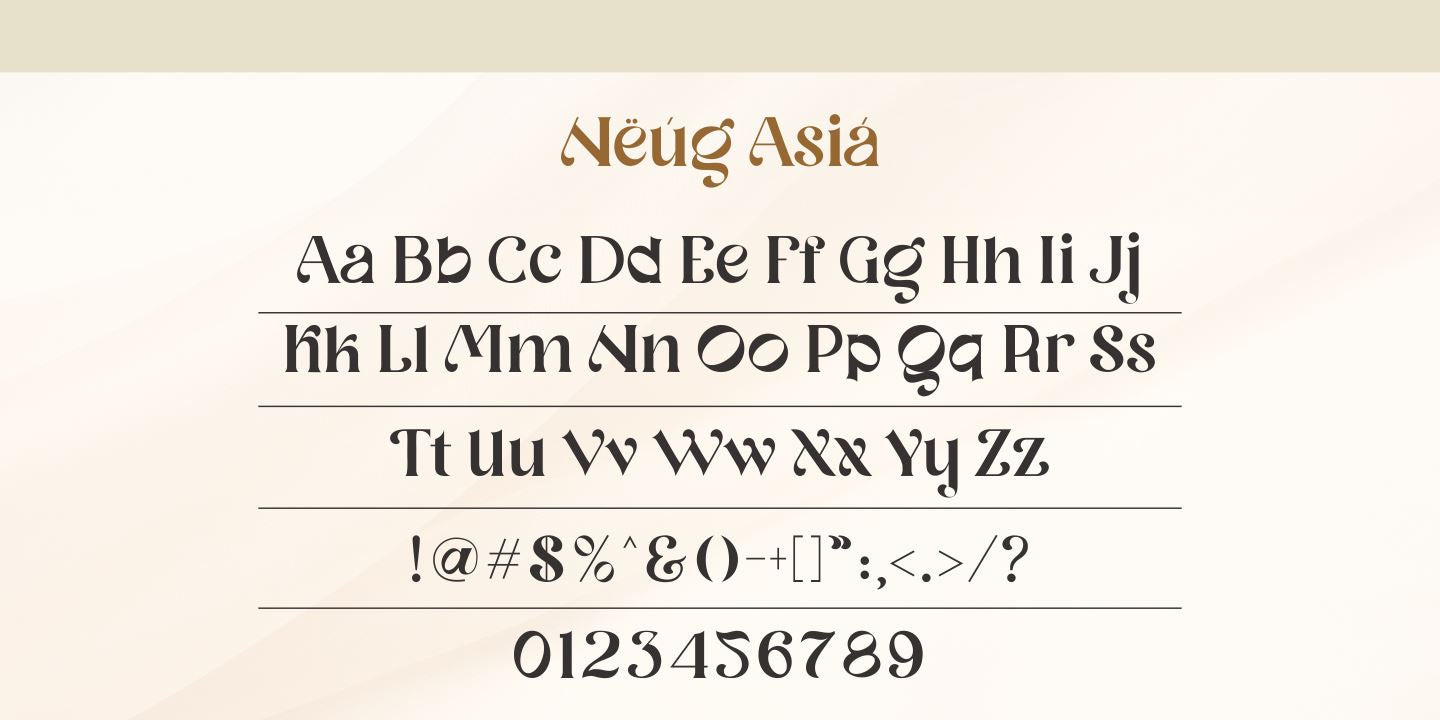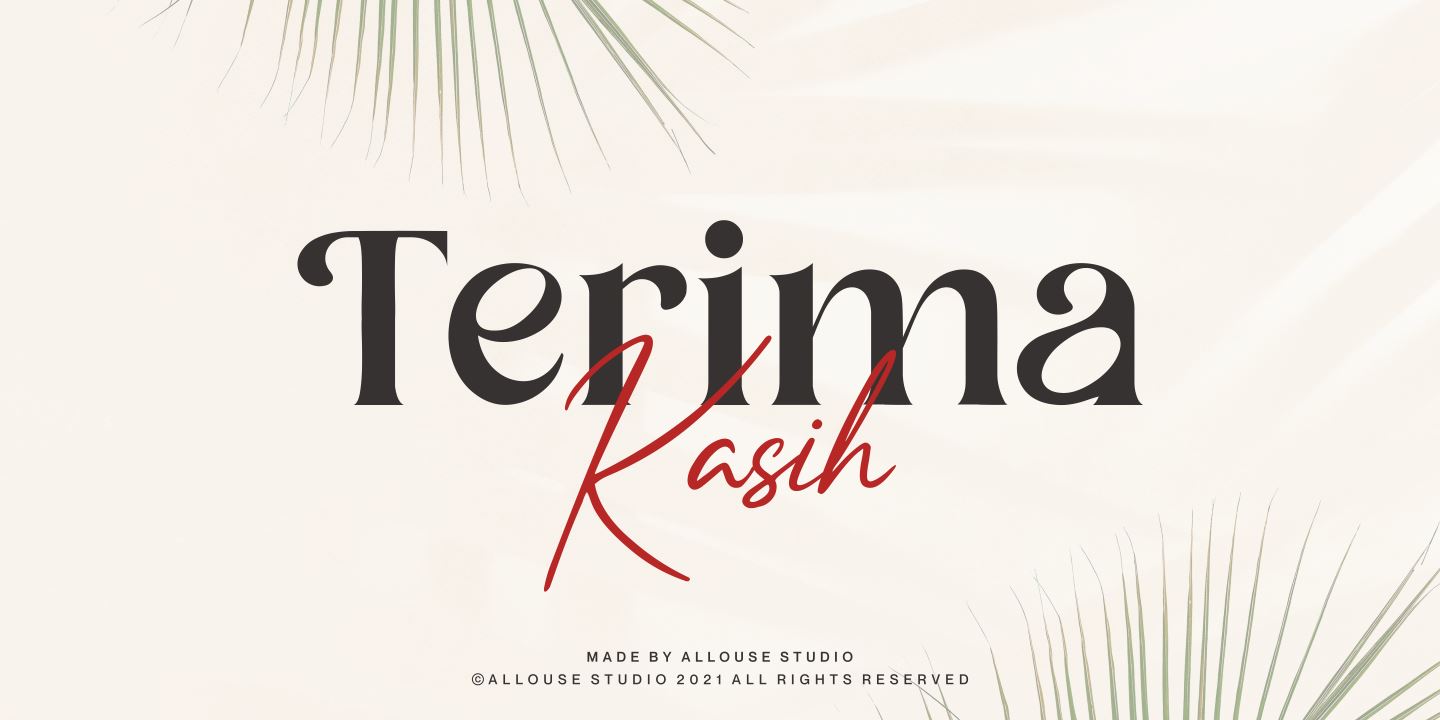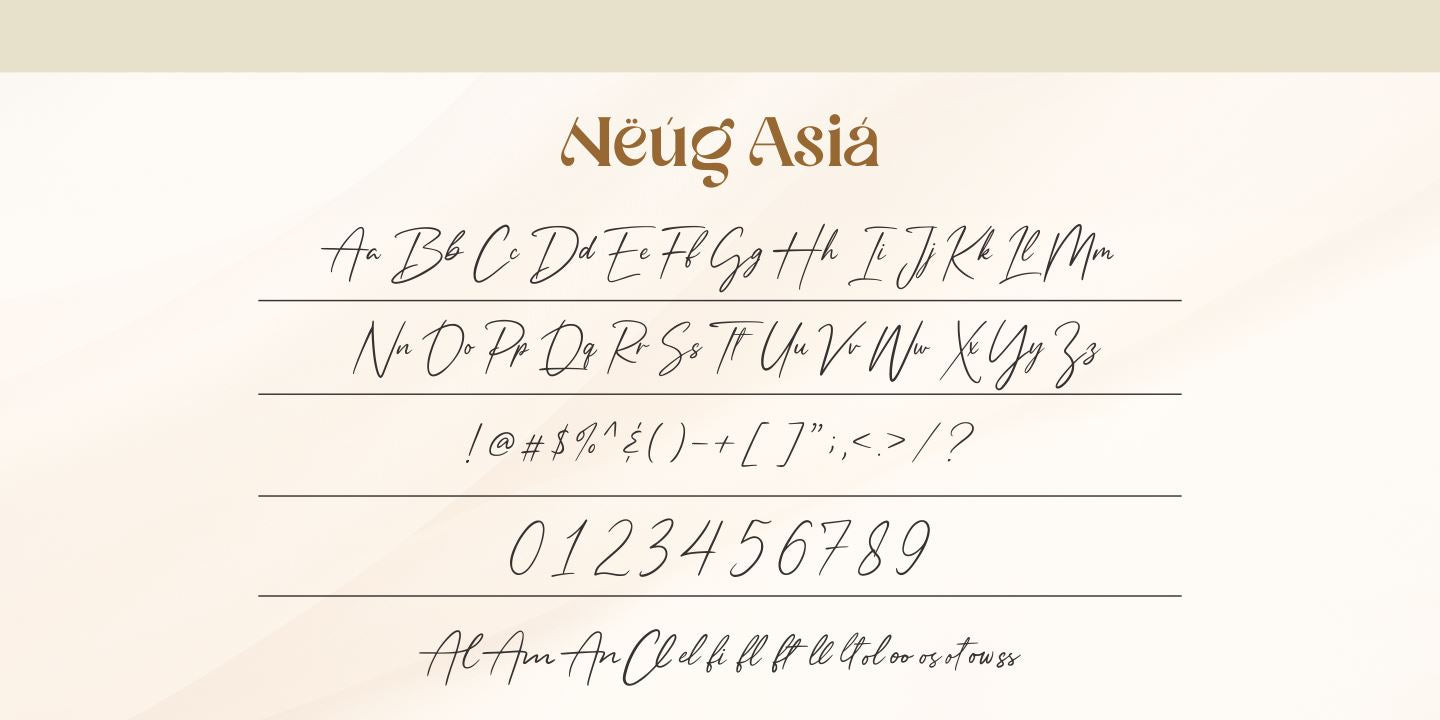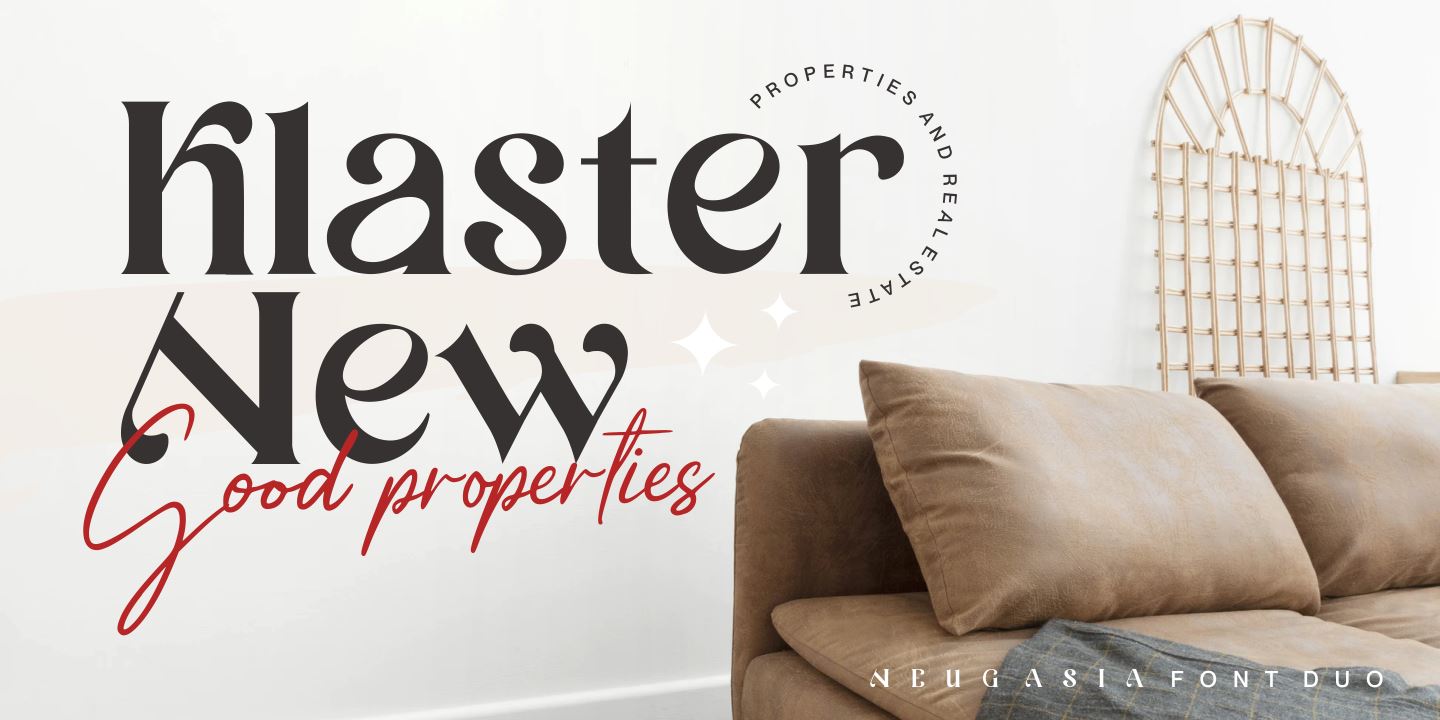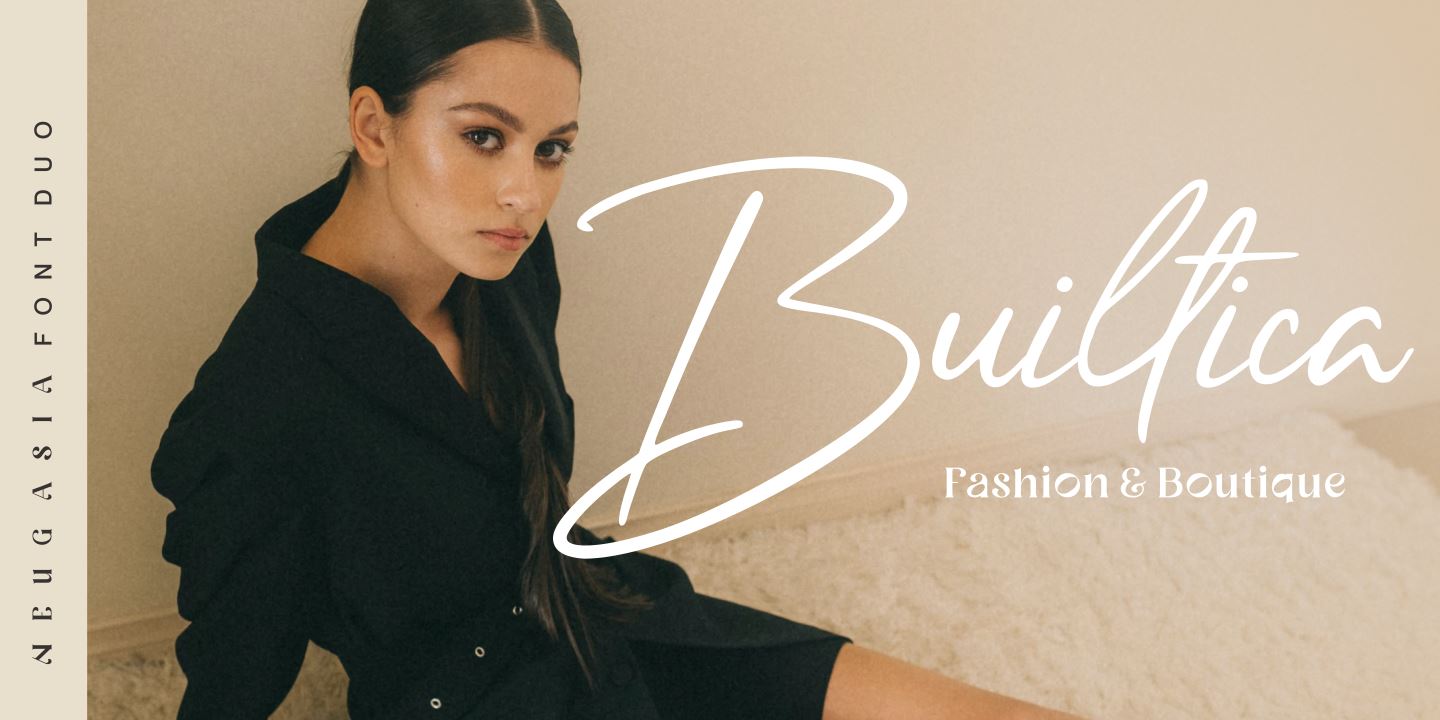
Proudly Presenting, Neug Asia. A font duo that will give you an a classy impression! Neug Asia can be display for any titles, logo, product packaging, branding project, megazine, social media, wedding, or just used to express words above the background. Neug Asia come with Multi-Lingual Support. Enjoy the font, feel free to comment or feedback, send me PM or email. Thank You!